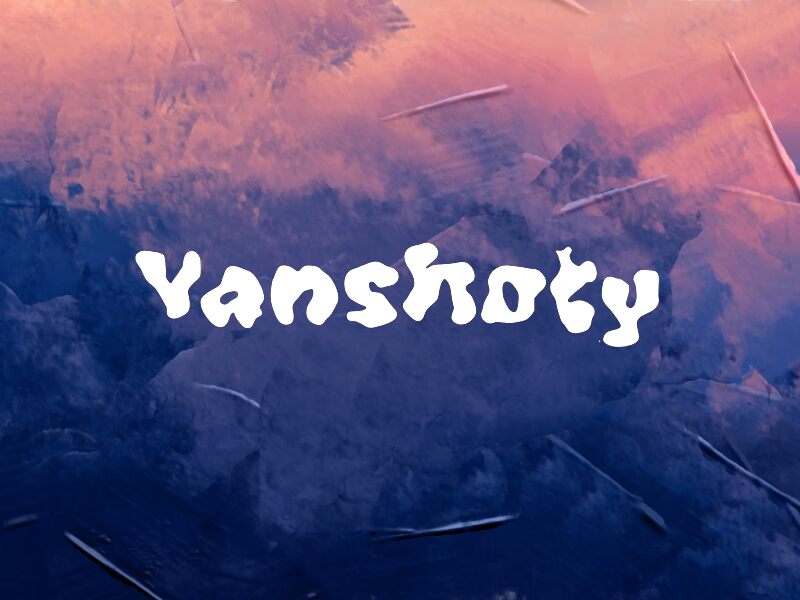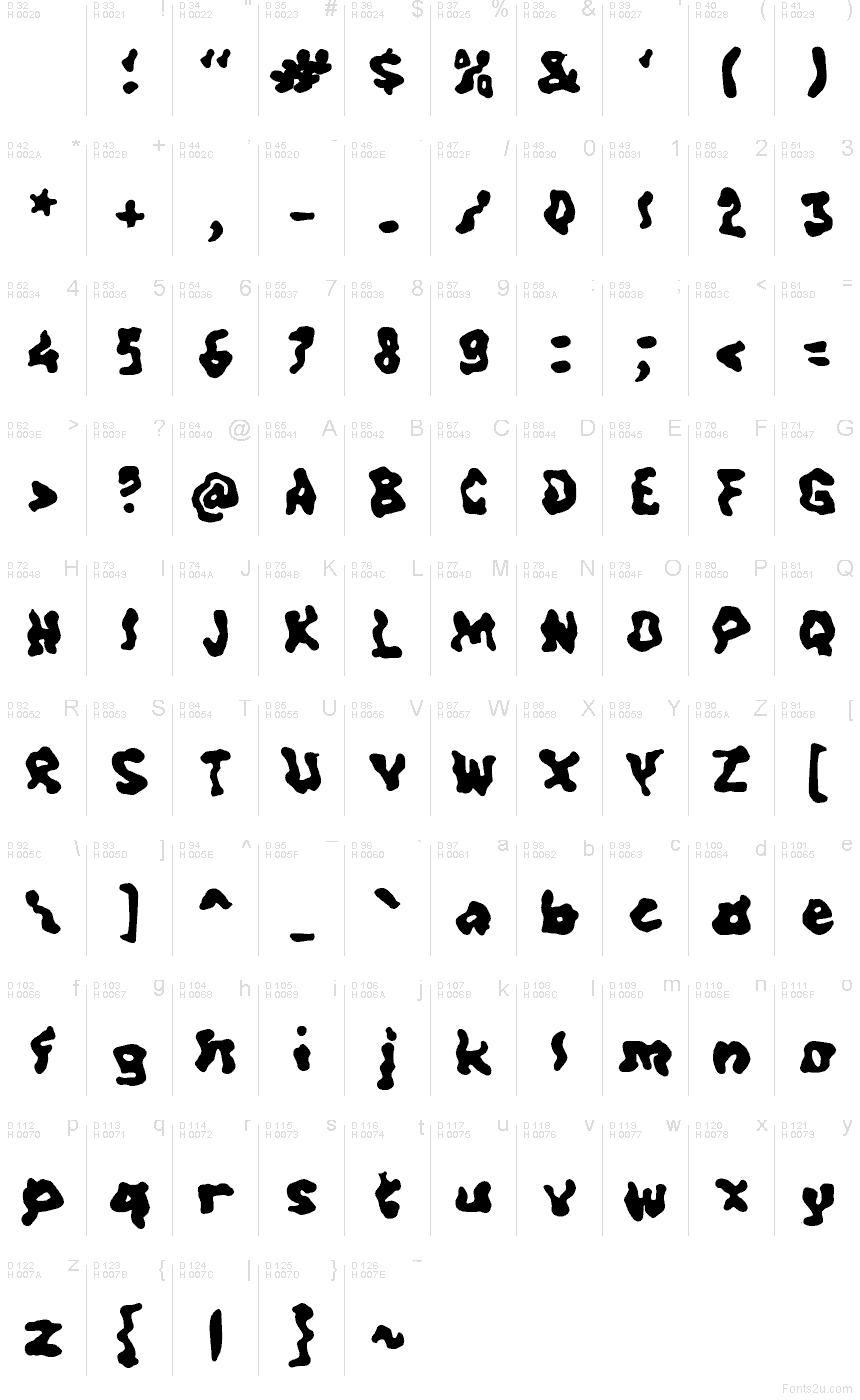
Vanshoty by wep is a free blob-distorted display font with a playful, late-psychedelic wobble. The letters look poured rather than drawn, with swollen curves, pinched joins, and soft, uneven silhouettes that make the whole font feel loose, gummy, and a little mischievous.
It fits posters, music artwork, streetwear graphics, sticker designs, packaging, and short social headers where the words need to feel informal and elastic. As a free font, Vanshoty works best in brief title cards, logo ideas, and punchy cover lines, because its thick, lumpy rhythm gives even simple words a handmade, slightly surreal pulse.
Vanshoty